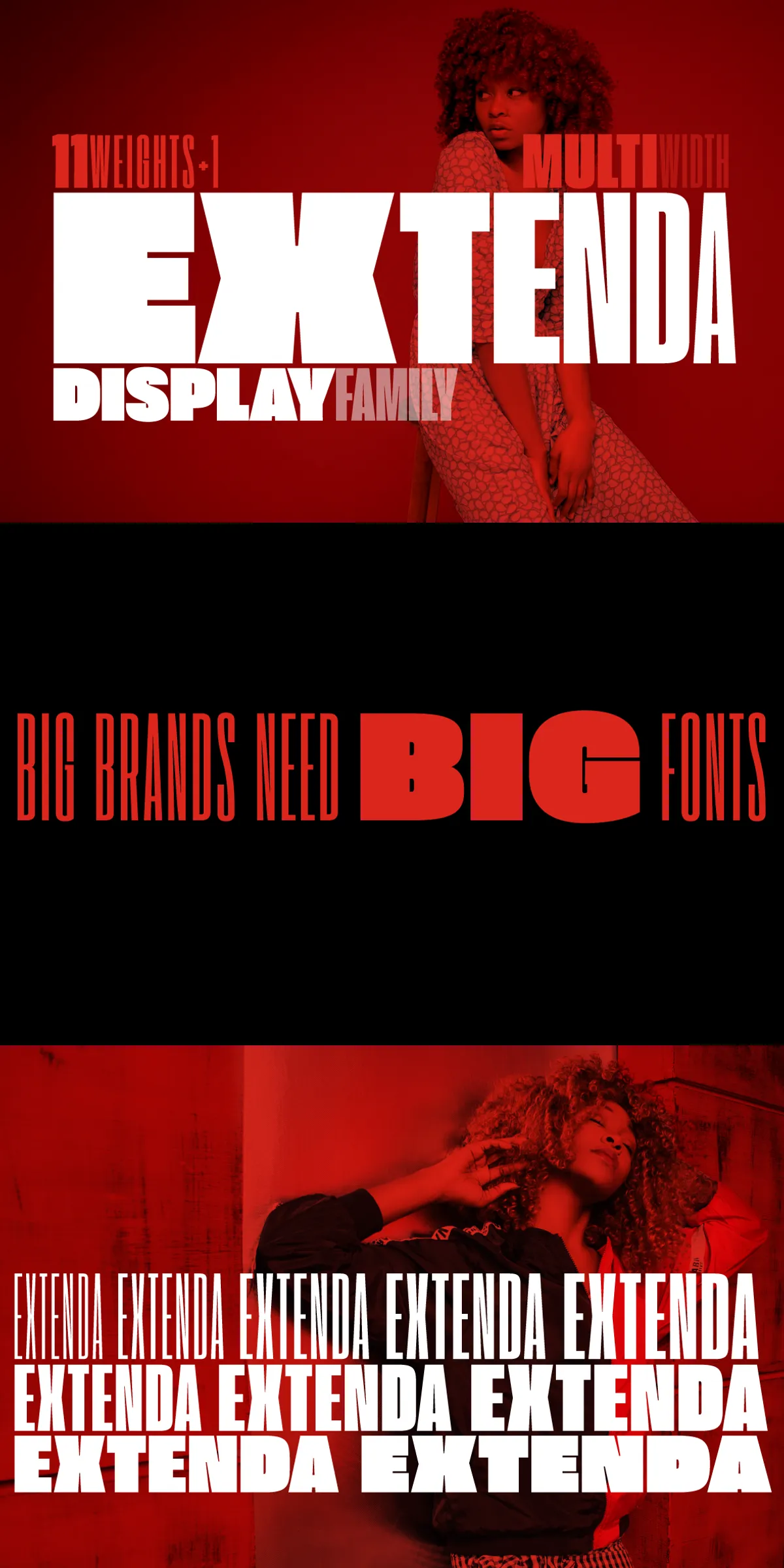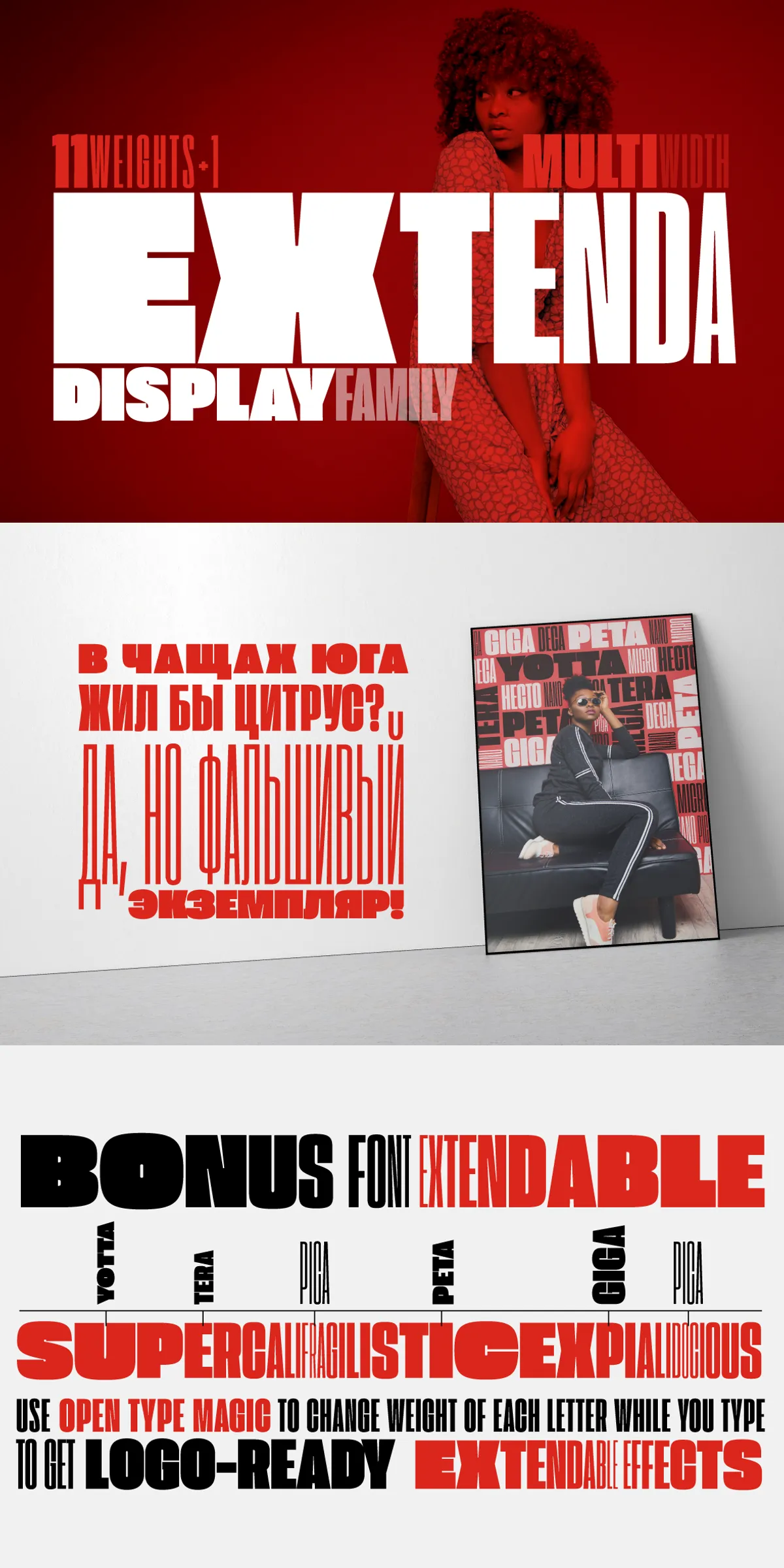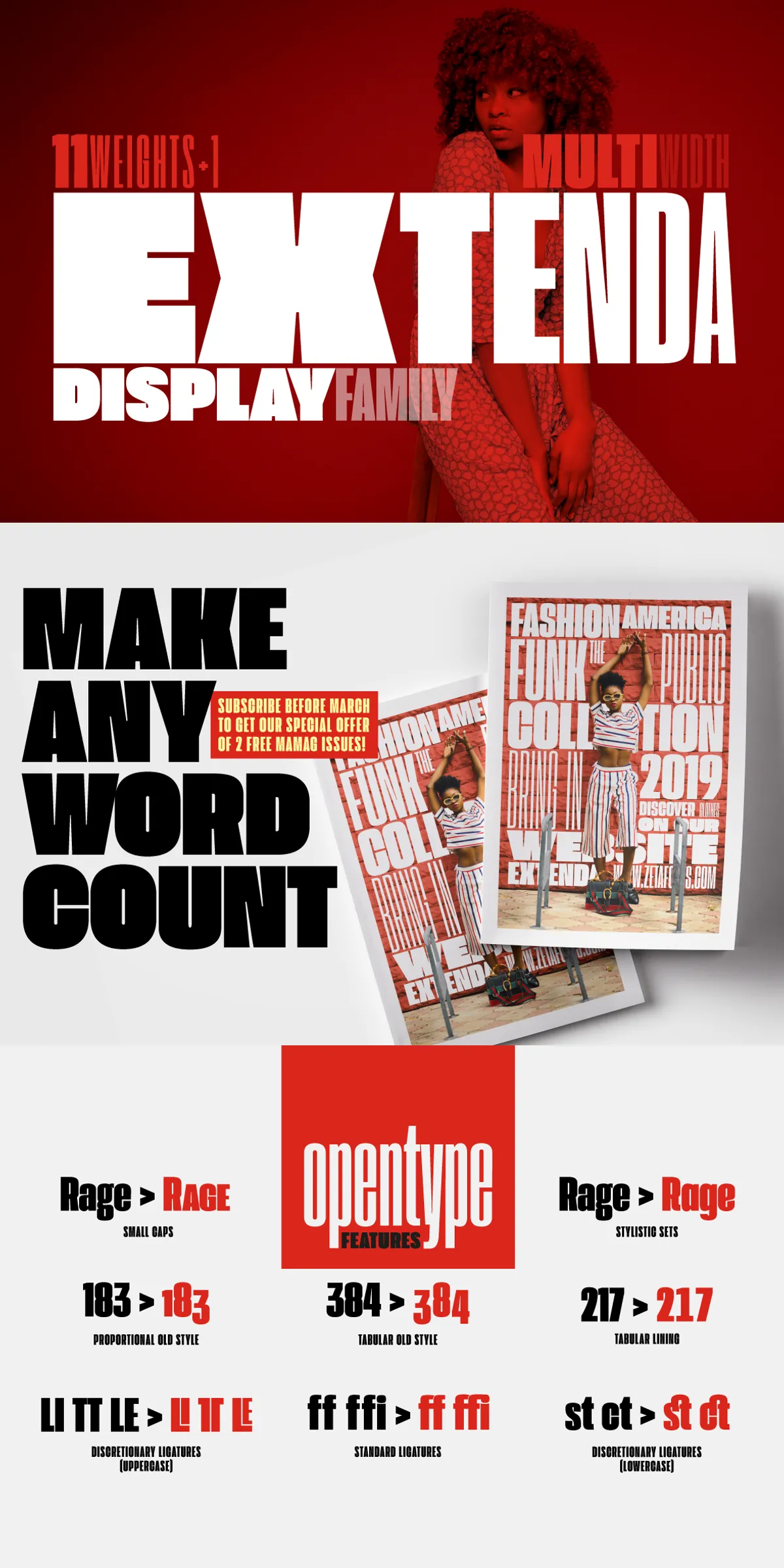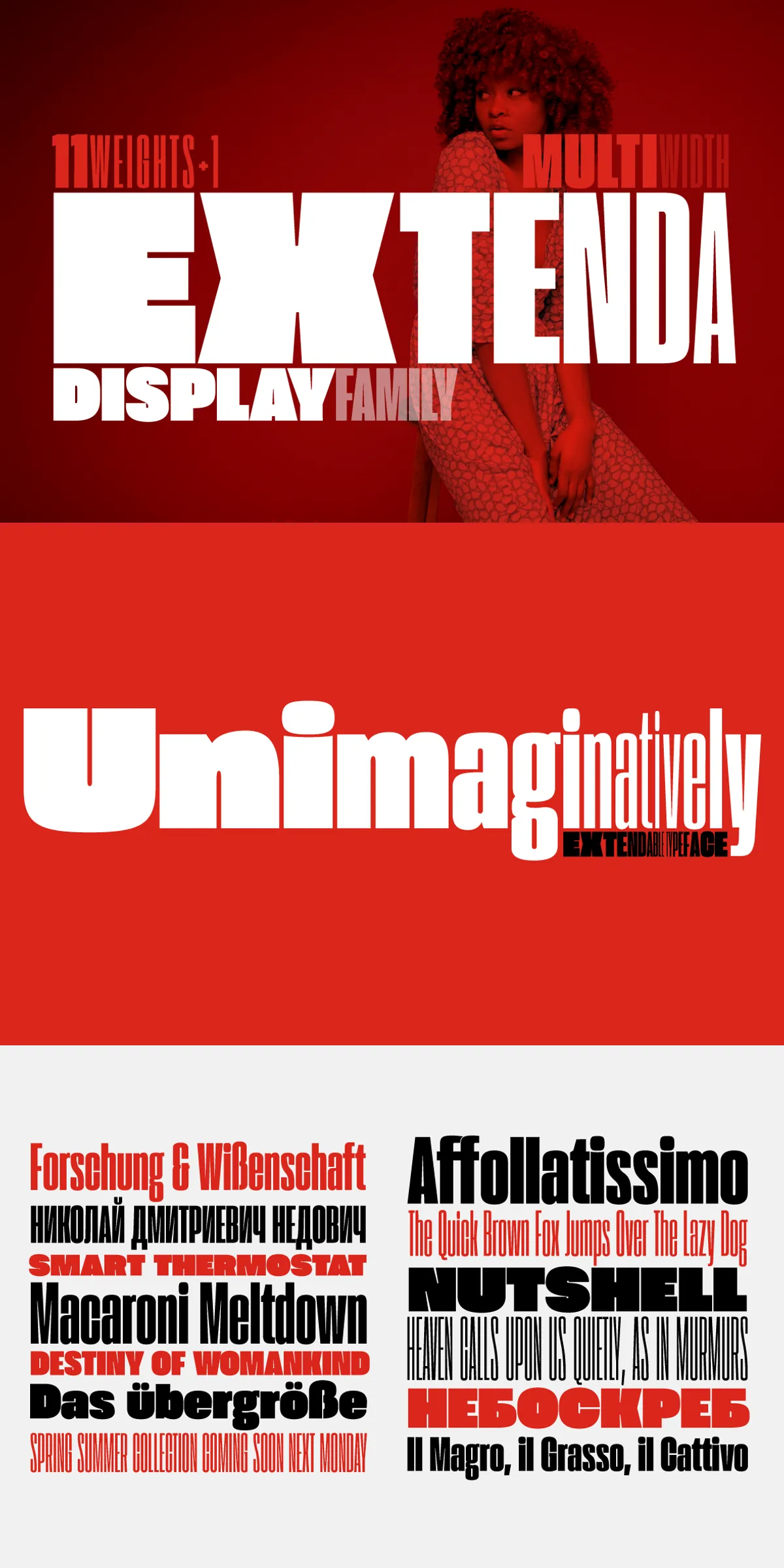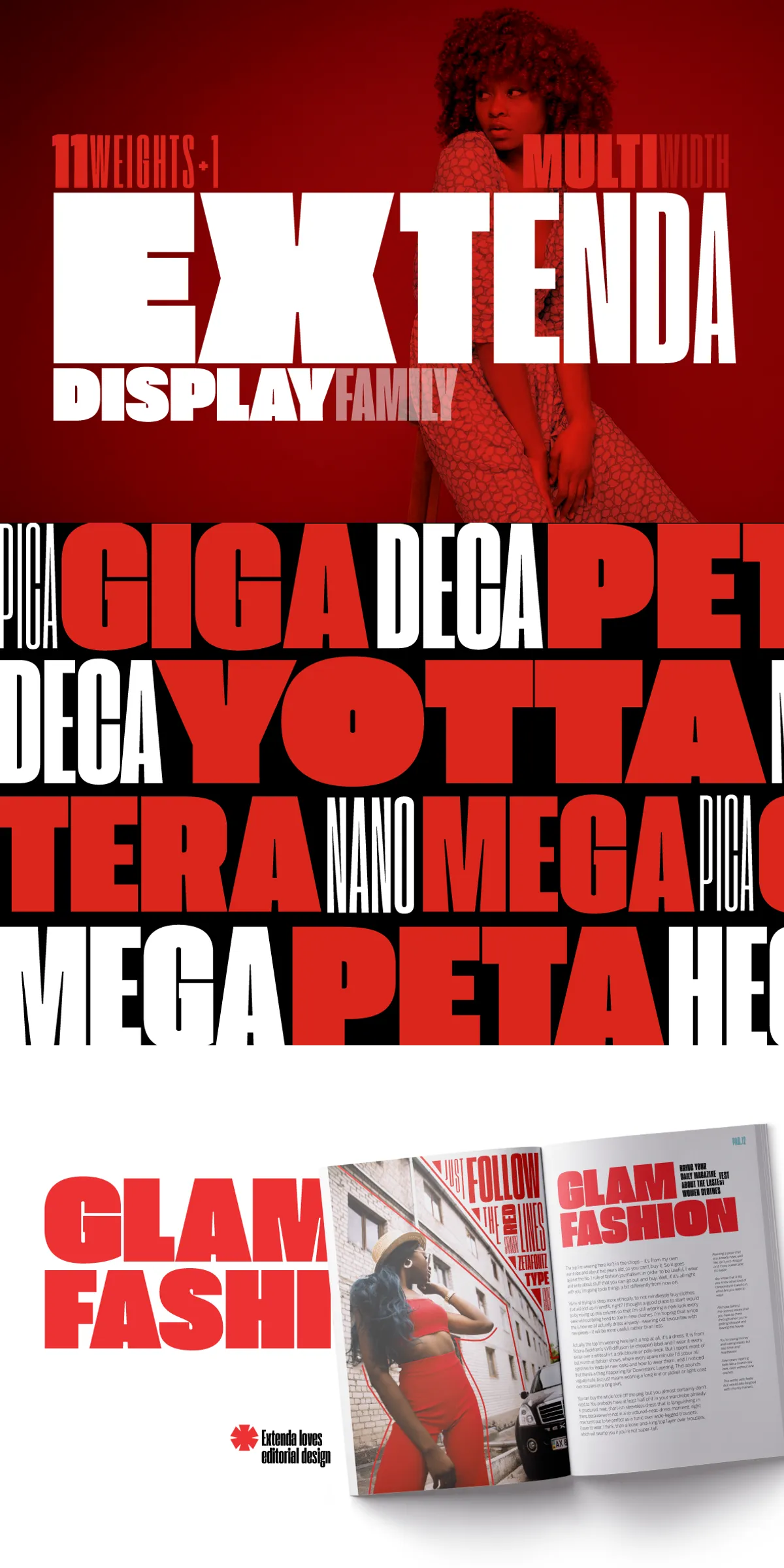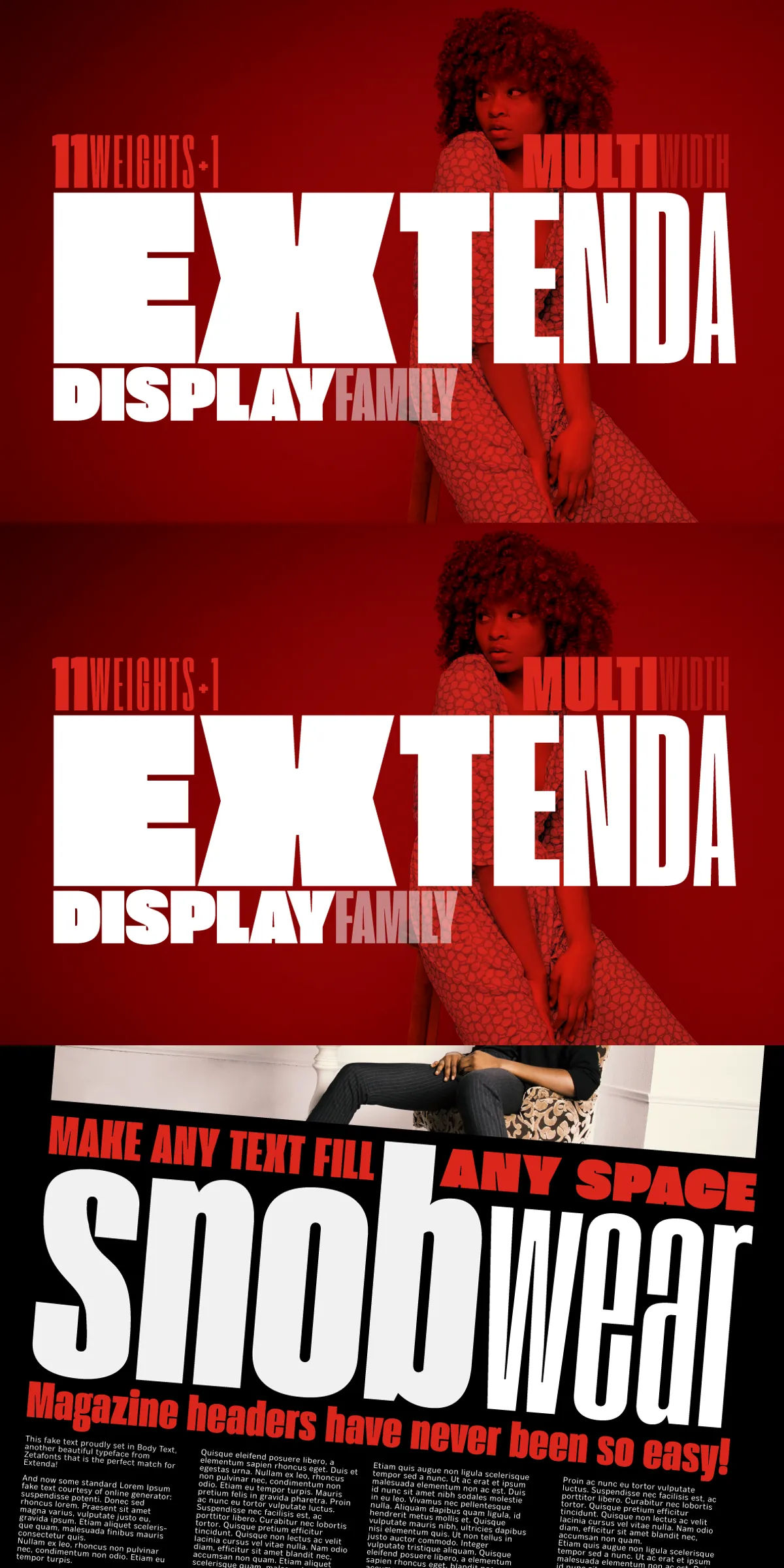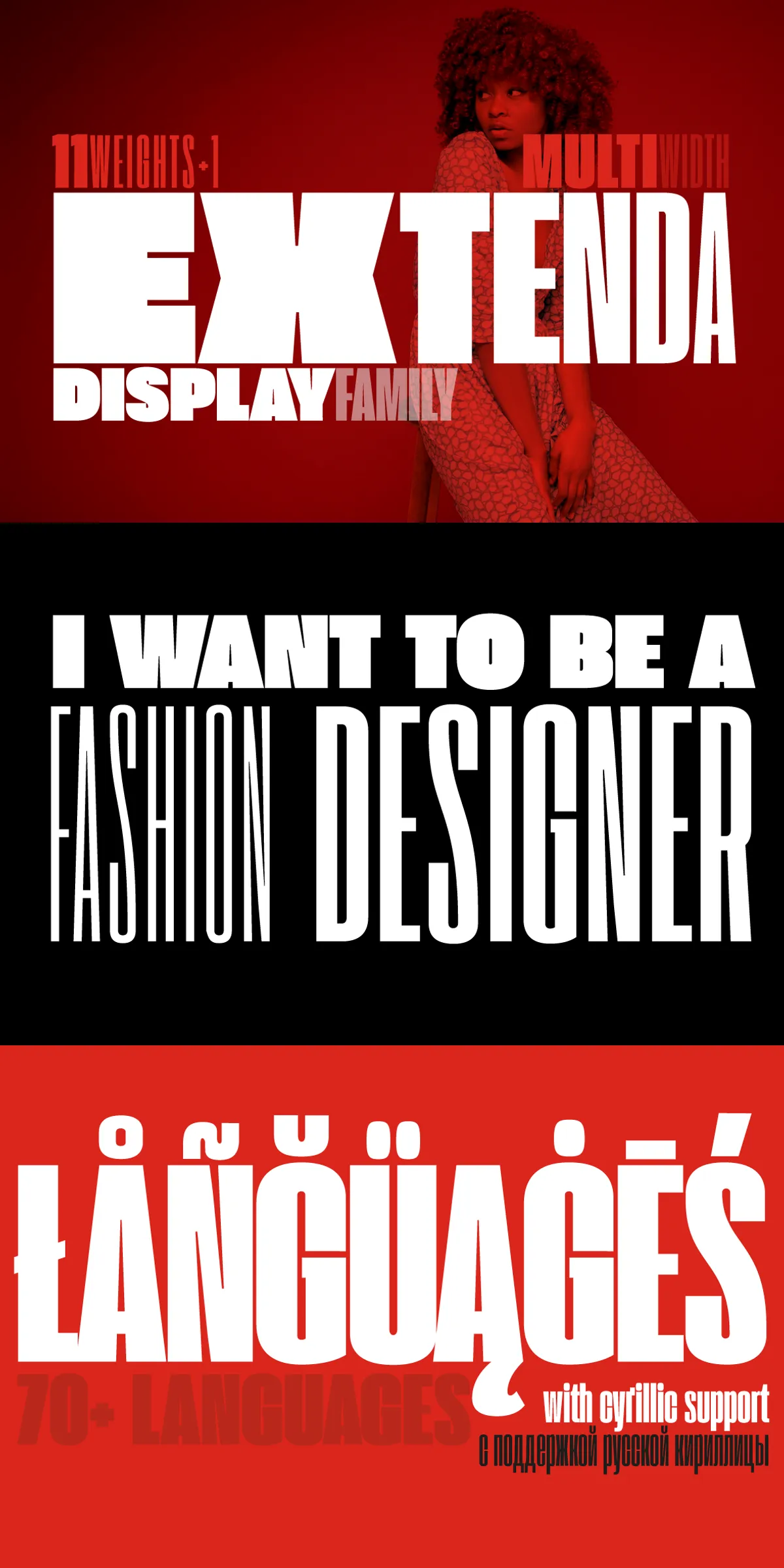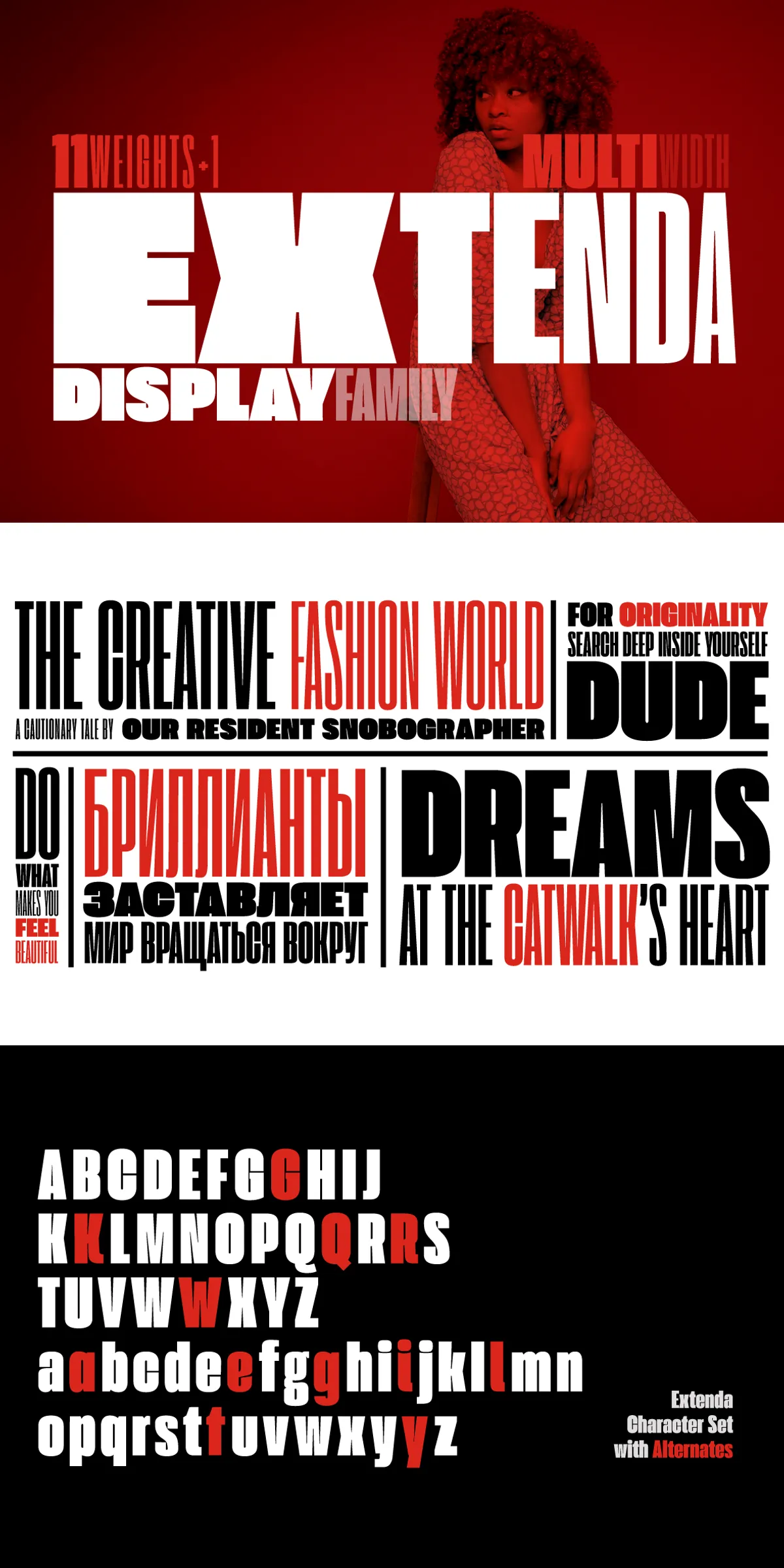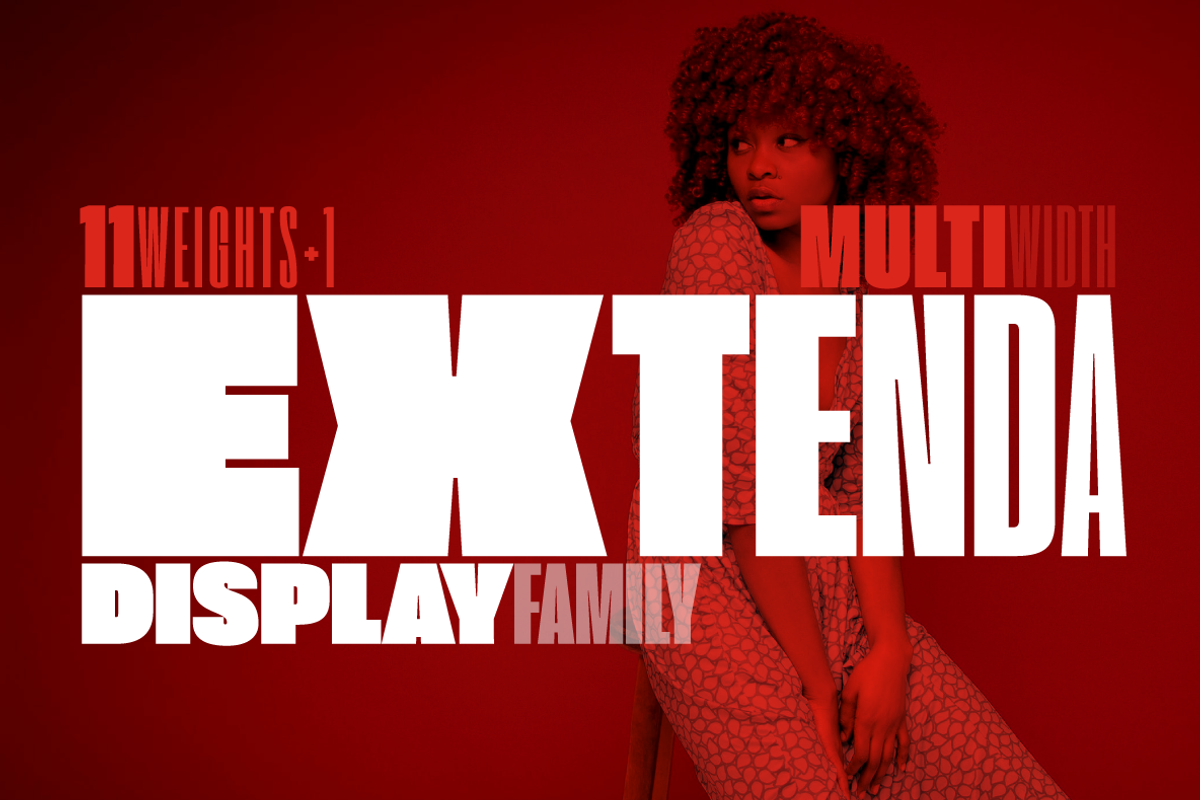
Extenda – 12 fonts
Meet Extenda — a revolutionary variable width sans-serif type family crafted by Francesco Canovaro, Andrea Tartarelli, and Cosimo Lorenzo Pancini. Designed for creators who demand precision, power, and creative freedom, Extenda redefines how you approach display typography. Instead of traditional weight variations, this groundbreaking family offers fine-grained control over width, enabling seamless transitions from ultra-thin, vertical Pica to massive, ultra-broad Yotta — all with consistent readability and visual harmony.
Whether you’re tightening text for a compact flyer or expanding a word for a bold poster headline, Extenda gives you the exact spacing you need — instantly, intuitively, without compromising clarity. Say goodbye to rigid font sets. With Extenda, your design choices are fluid, responsive, and fully customizable.
Engineered for Professional Creativity: Core Features
Extenda isn’t just flexible — it’s built for real-world performance. Each font in the family includes a comprehensive set of professional typographic tools:
• 11 Standard Weights: From the delicate, near-vertical Pica, Nano, and Micro to the massive, blocky Peta, Exa, and Yotta, every width is meticulously crafted for maximum visual impact.
• Extendable Special Weight: A unique dynamic style that uses OpenType scripting to automatically adjust each character’s width based on its position in a word or sentence — creating natural, flowing text that scales perfectly across designs.
• Full OpenType Features: Access to small caps, stylistic alternates, discretionary and standard ligatures, positional number forms, and more — all built-in and easy to access in Adobe Illustrator, Photoshop, InDesign, and Microsoft Word.
• Extensive Character Coverage: Supports over 200 languages, including full Latin, Cyrillic, and Greek character sets — ideal for international branding, multilingual editorial design, and global campaigns.
Designed for Impact: Use Cases That Demand Power
Extenda thrives where boldness and precision meet. It’s the perfect choice for high-stakes design environments where every pixel counts.
Top Applications for Extenda
• Logo & Brand Identity: Create striking, scalable logos that adapt perfectly from business cards to billboards using proportional width variation.
• Headlines & Editorial Design: Crush the page with tightly spaced, dynamic headlines that command attention in magazines, newspapers, and digital publications.
• Display Typography: Use extreme widths to create dramatic visual contrast — perfect for poster art, album covers, and event promotions.
• Web & UI Design: Leverage CSS support to enable dynamic width adjustments in responsive layouts, bringing interactivity to text.
• Product Packaging & Labeling: Maximize space coverage in compact designs while maintaining sharp readability.
• Advertising & Digital Campaigns: Stand out in paid ads and social media graphics with text that draws eyes and drives engagement.
Your Creative Vision, Fully Realized
Extenda isn’t just a font — it’s a statement. It’s for designers who refuse to be limited by static weights and fixed spacing. It’s for brands that want to push boundaries, tell bigger stories, and own their visual presence.